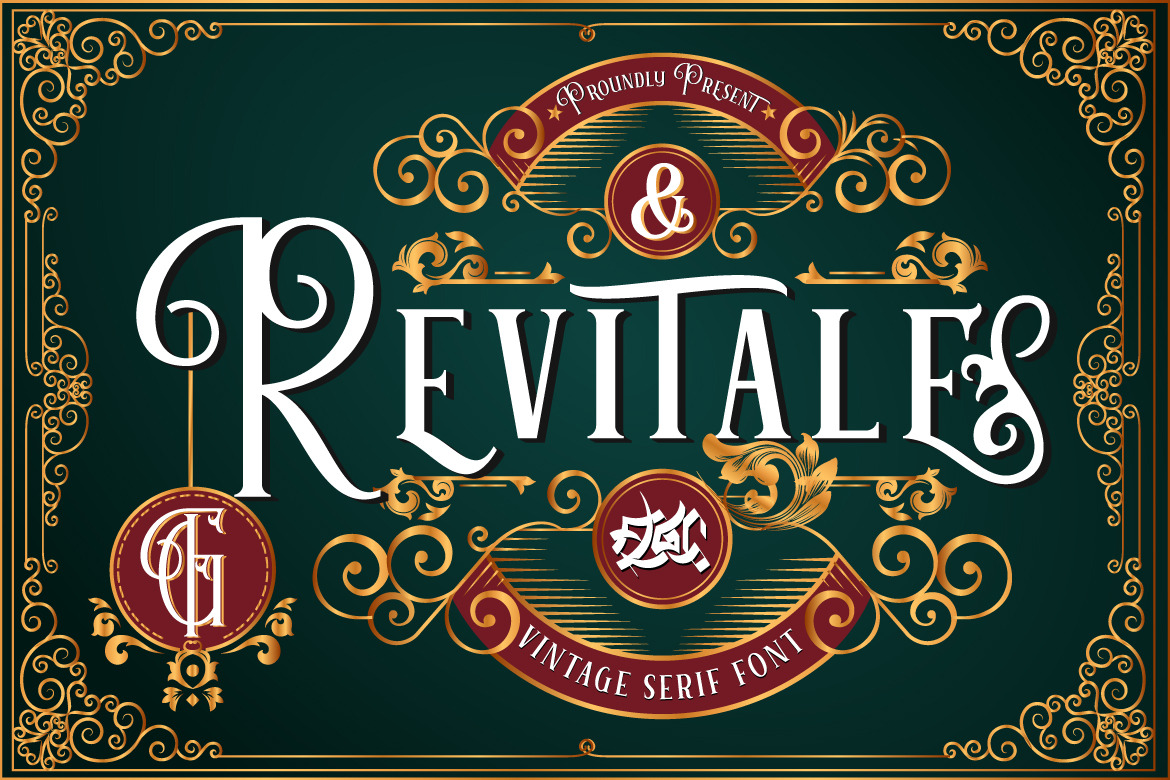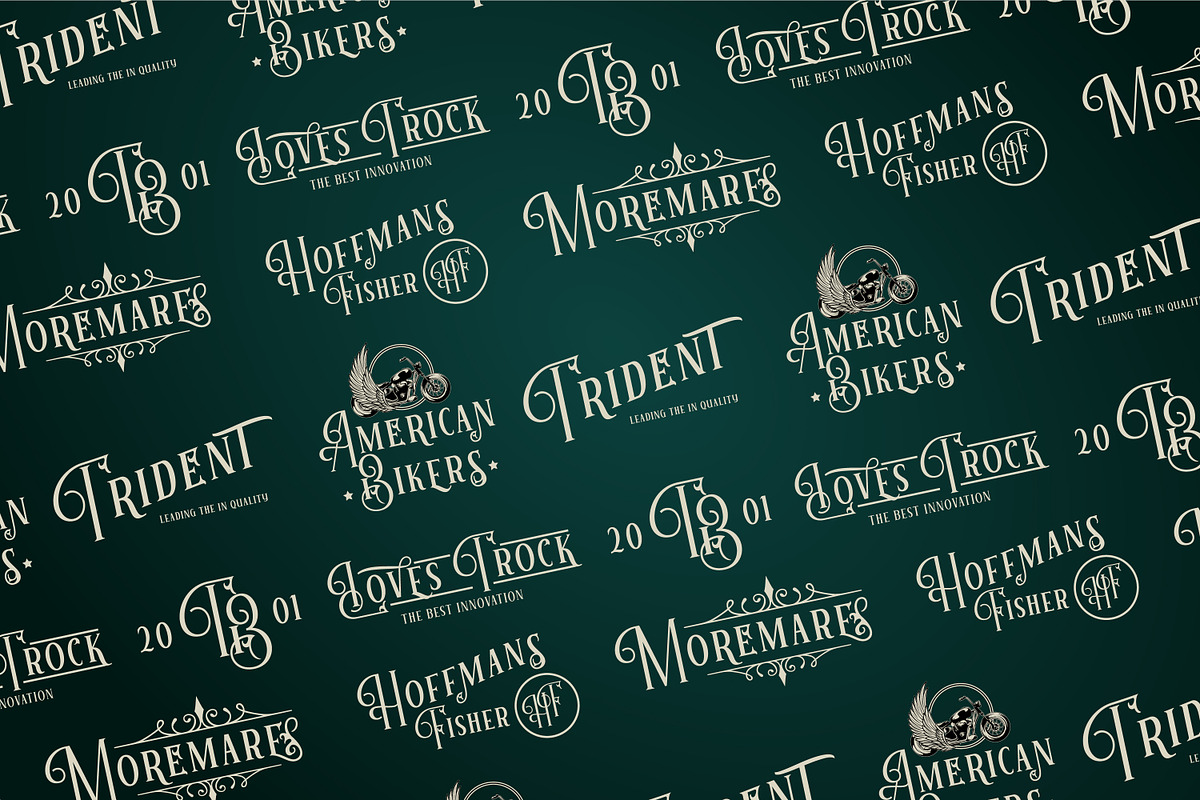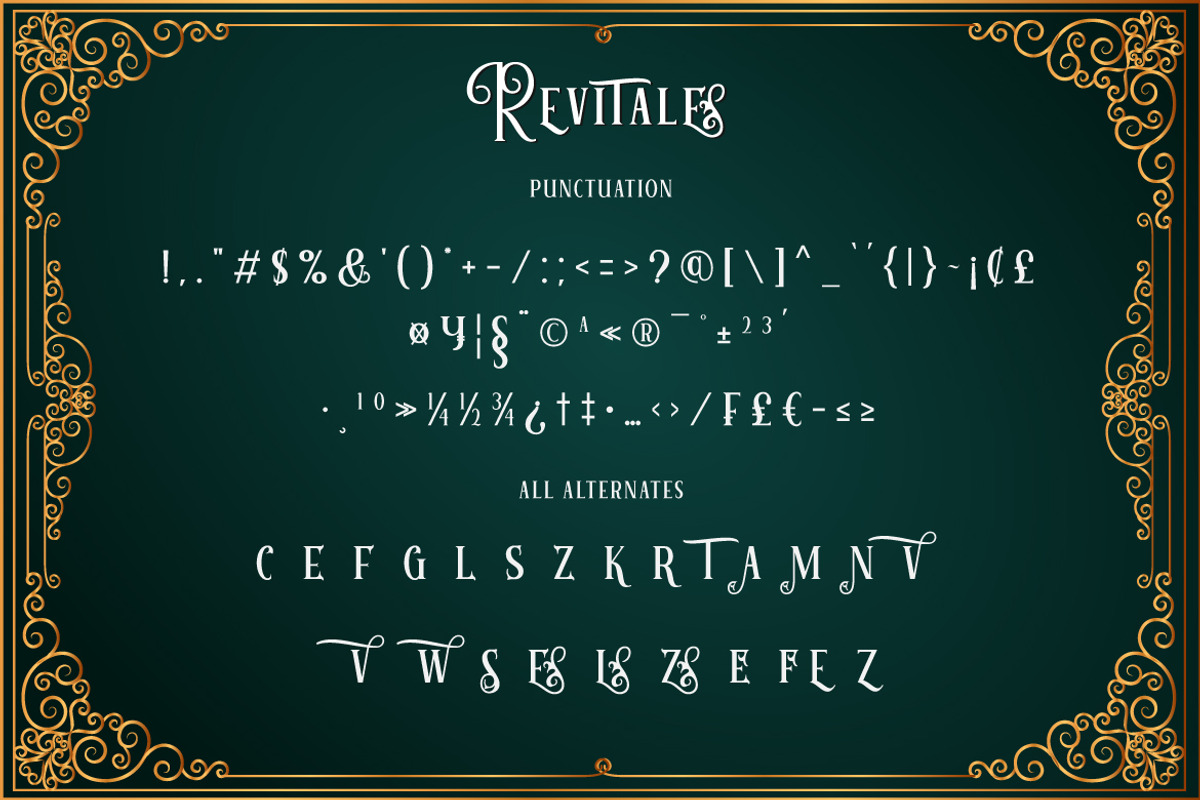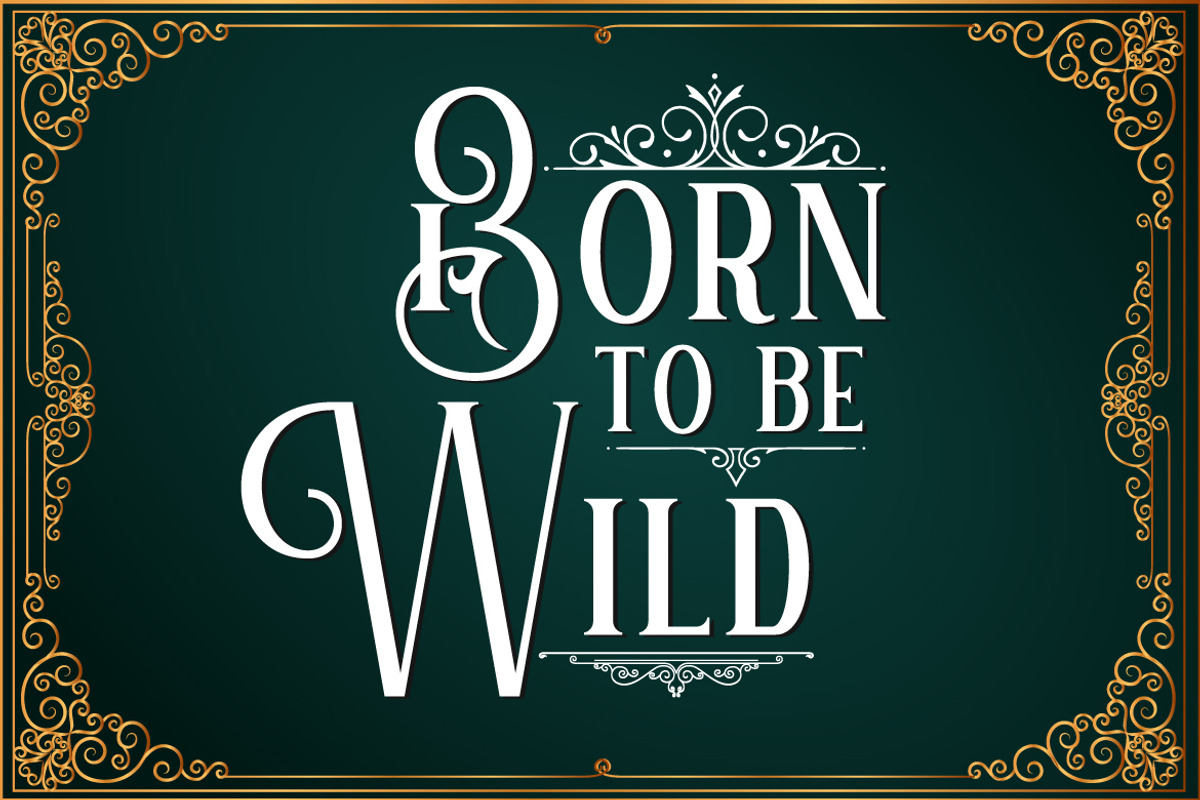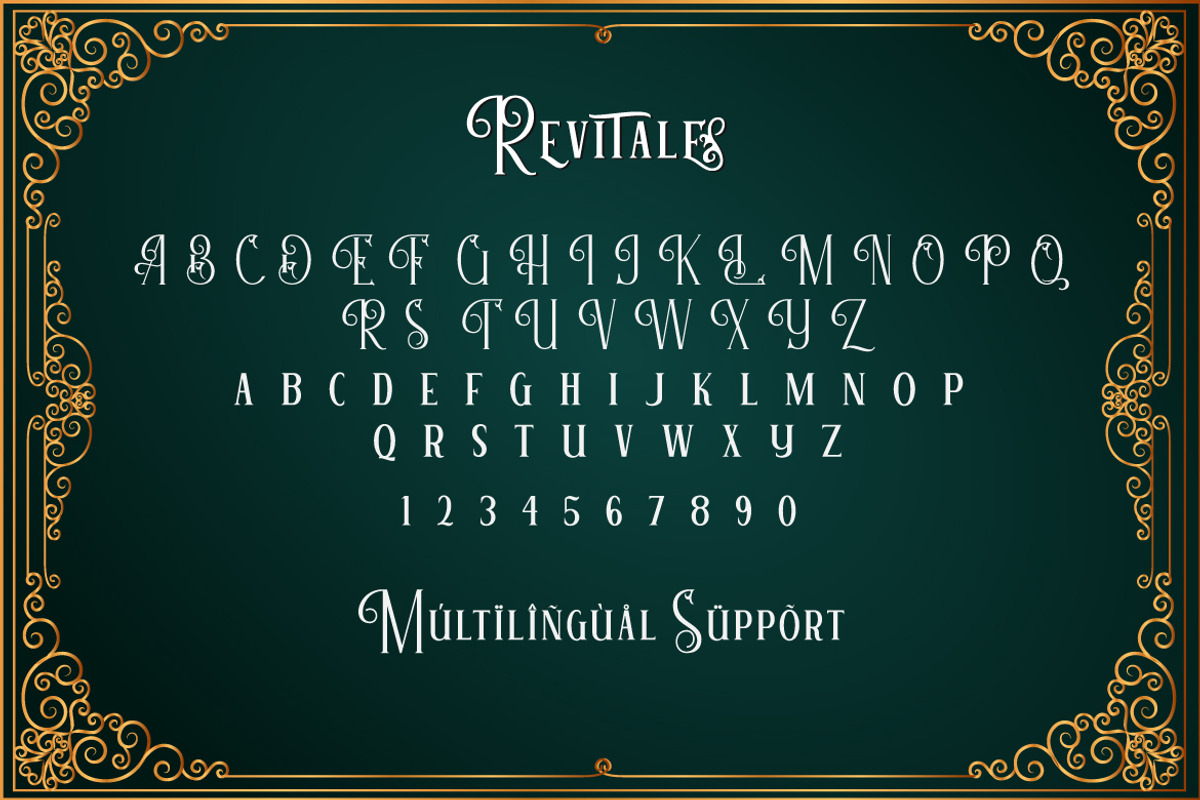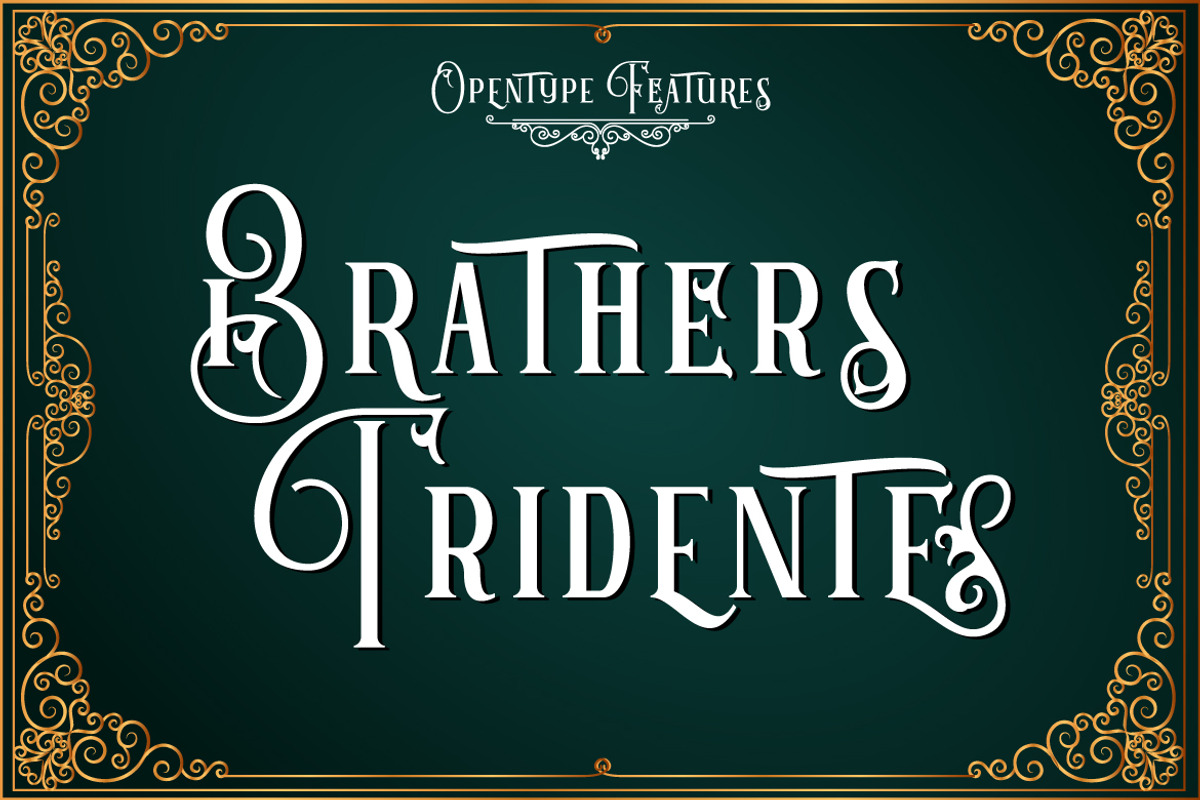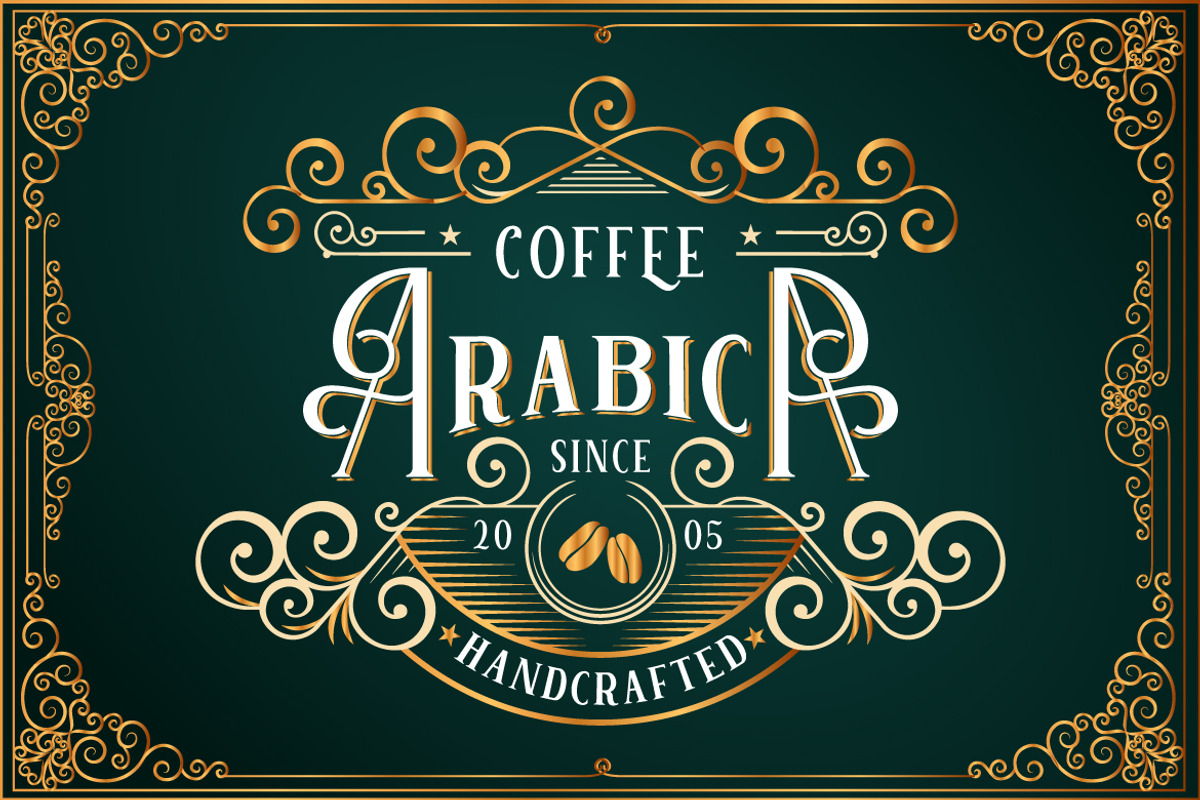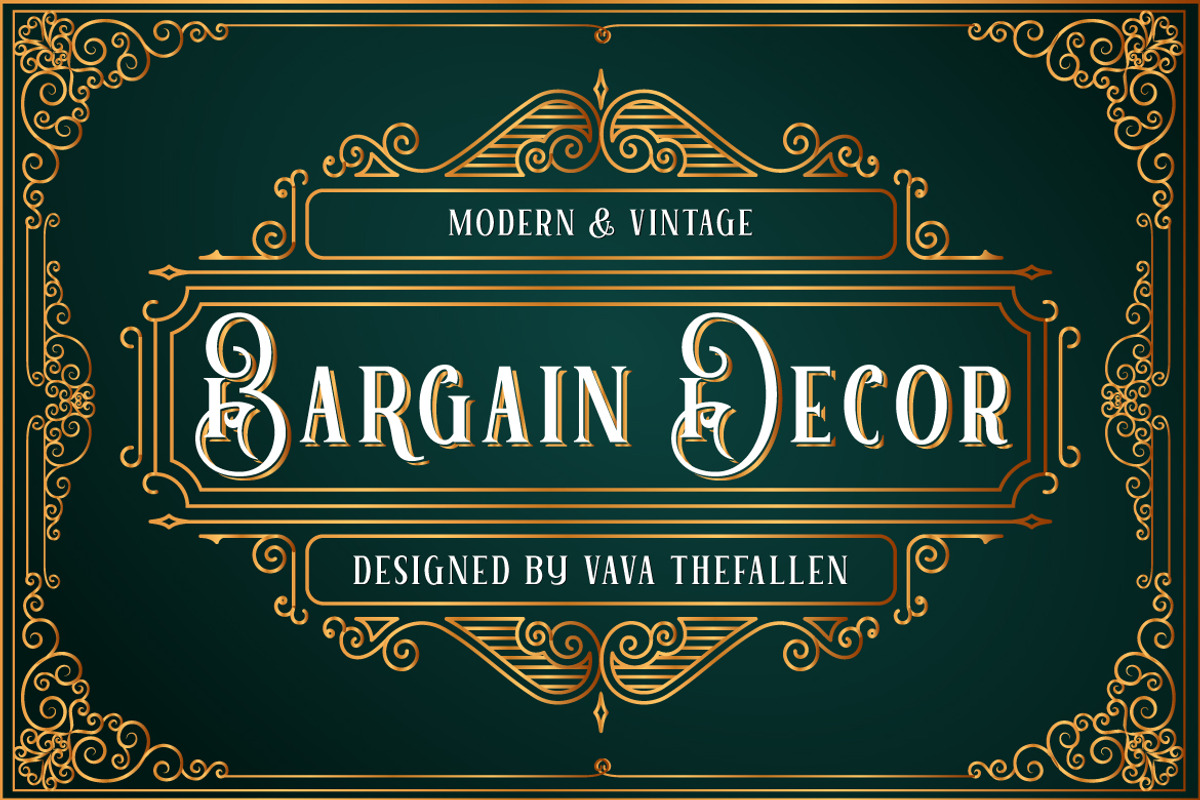
Revitale - A Vintage Serif Font
Revitale is stands out as a diverse selection of typefaces, beautiful alternates character that maintain a coherent look and feel throughout. font is perfect for branding, headings, signatures, logos, blog, wedding invitations, t-shirts, letterhead, merchandise, signage, lable, news, posters, badges etc.
- Character Set A-Z
- Numberal
MULTiLINGUAL ACCENT
žŠŒšŸÀÁÂÃÄÅÆÇÈÉÊËÌÍÎÏÐÑÒÓÔÕÖØÙÚÛÜÝßàáâãäåæçèéêëìíîïðñòóôõöøùúûüýÿ